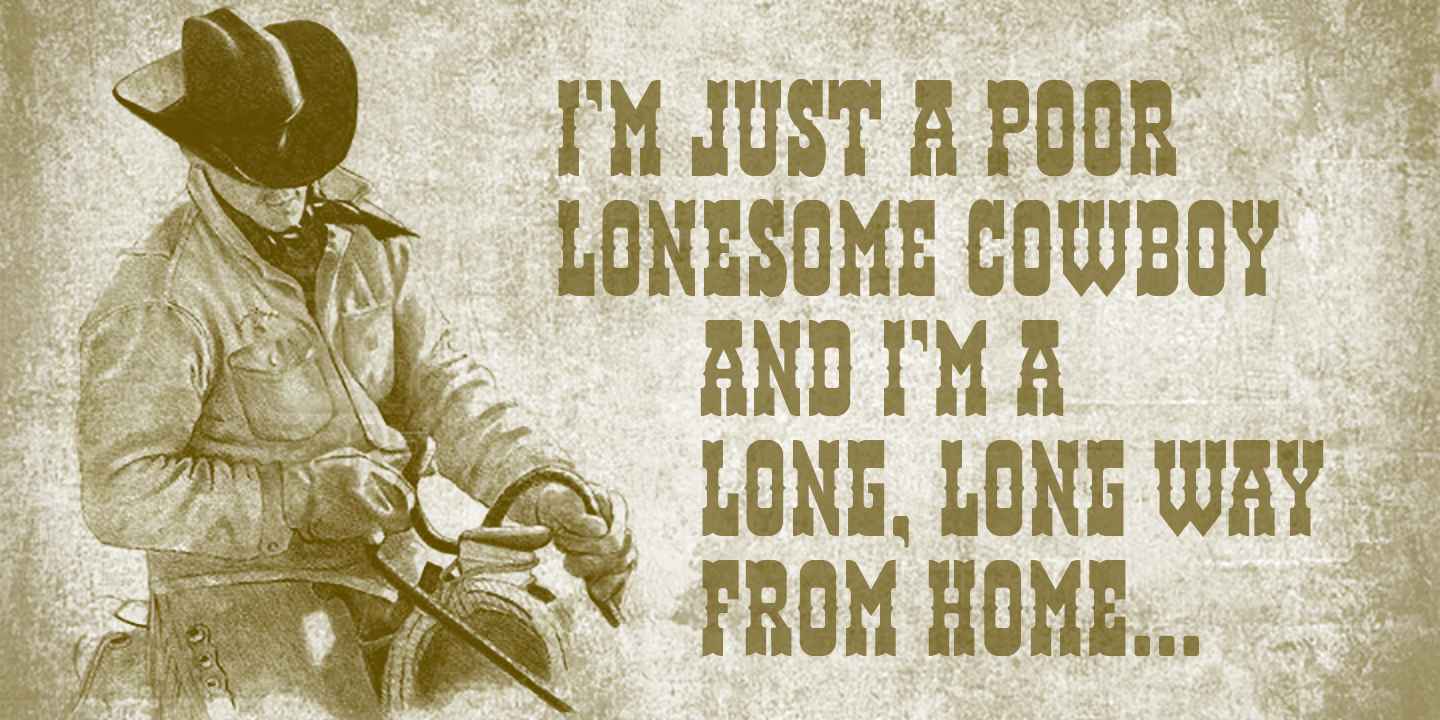
Helldorado Pro Font is perfect for Western movie titles, saloon bar signage, cowboy-themed events, frontier adventure marketing, Wild West entertainment venues, rodeo competition graphics, country music promotions, western apparel branding, horseback riding academies, and authentic frontier lifestyle advertising.
What makes Helldorado Pro Font exciting is its frontier spirit that perfectly captures the rugged independence and lawless adventure found in Wild West legends and cowboy culture. This typeface features bold letterforms with gunslinger proportions and frontier details that evoke the dangerous excitement and untamed freedom of the American frontier. The font's outlaw personality and western authenticity make it ideal for entertainment brands seeking to convey adventure, rebellion, and the wild spirit that comes from frontier living and cowboy independence.
Helldorado Pro Font family includes gunslinger weight variations and frontier alternatives that enhance its western appeal while providing design flexibility for cowboy and adventure applications. The font features outlaw ligatures, western-themed ornaments, and frontier character variations that create authentic Wild West atmosphere for western and adventure branding.
Western entertainment companies and frontier lifestyle brands consistently select Helldorado Pro Font Free Download for projects requiring authentic cowboy appeal and Wild West credibility. The font's outlaw character excels in applications targeting western enthusiasts, adventure seekers, and frontier culture followers who appreciate genuine cowboy spirit and Wild West traditions. Whether you're designing for western entertainment venues, cowboy gear, or frontier adventure experiences, this rugged typeface delivers the western authenticity and frontier spirit that resonates with audiences seeking genuine cowboy culture and the wild freedom that defines American frontier heritage and outlaw independence.